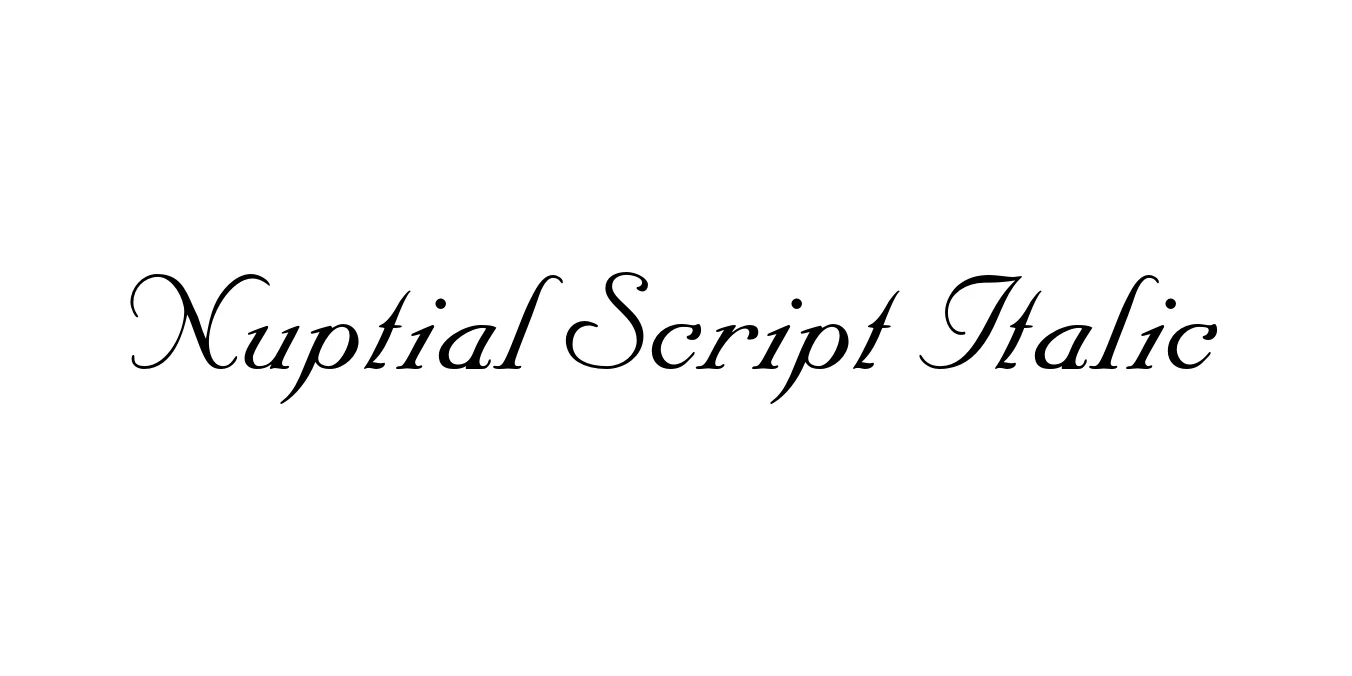
Nuptial Script Italic
Designed by Edwin W. Shaar
Nuptial Script Italic is a classic, flowing script typeface characterized by its elegant, formal, and handwritten aesthetic. Originally designed by Edwin W. Shaar in 1952 for Intertype, it was specifically crafted to capture the grace of traditional calligraphy often found in high-end social stationery and formal correspondence.
The font features delicate, interconnected strokes and a distinct slant that conveys a sense of sophistication and romance. Its refined curves and balanced letterforms make it a staple for bridal-themed designs, luxury branding, and any creative project requiring a touch of timeless class and legibility in a cursive format.
Nuptial Script Italic Best Uses
Perfect for names and headings on formal bridal stationery and envelopes.
Ideal for high-end boutique logos and premium product packaging requiring a personal touch.
Excellent for personal notes, formal thank you cards, and birth announcements.
Great for place cards, menus, and programs at upscale gala events or ceremonies.